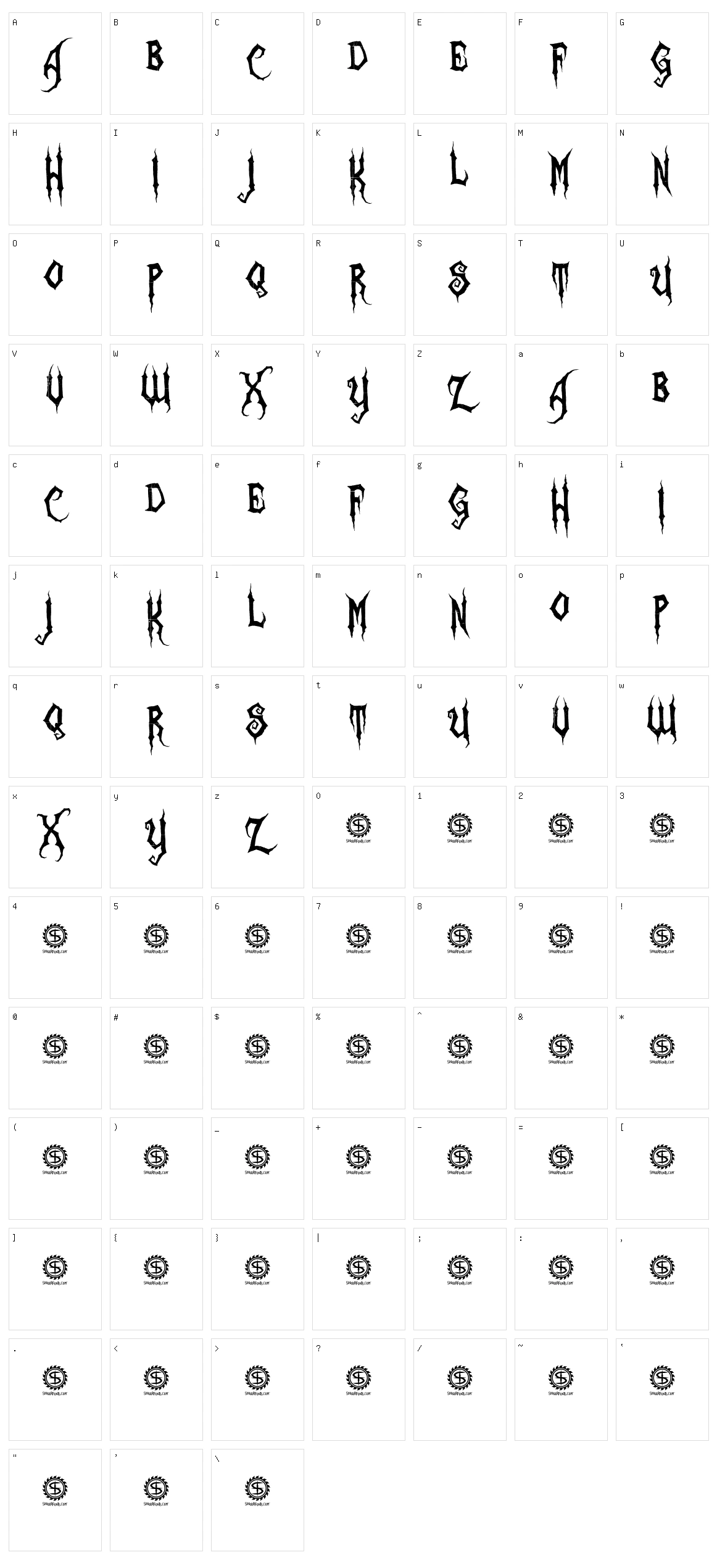
Zombie Holocaust
Category: Various & Gothic
Zombie Holocaust Font by Chad Savage
Created 2005, hand-lettered while watching George Romero's "Day of the Dead".
This font is intended for specialty and graphic uses. It has only letters - no numbers or punctuation. It will look just awful if used in a paragraph format.